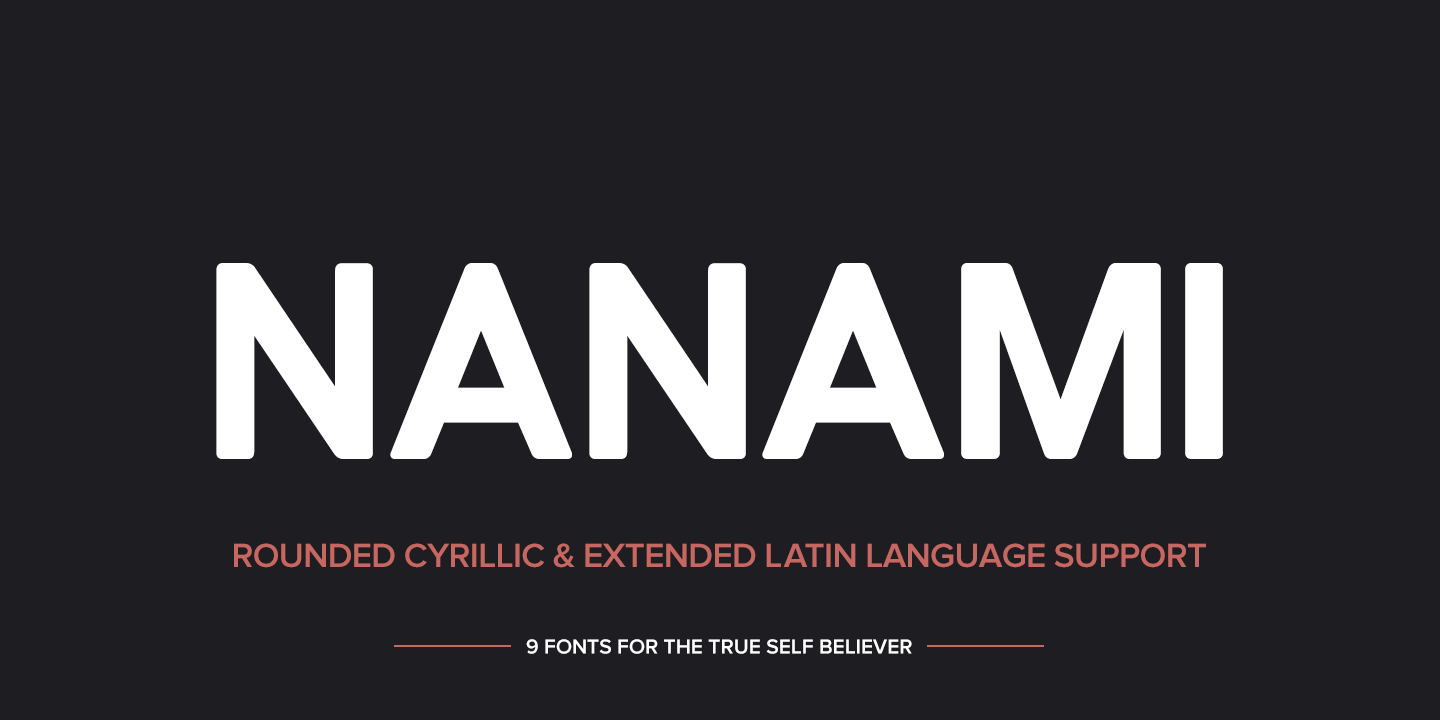
Nanami Rounded Pro Font is an incredibly versatile typeface, perfect for a wide range of applications. Its friendly and approachable design makes it ideal for branding, packaging, children's books, mobile app interfaces, and even editorial layouts. Whether you're designing a vibrant logo, crafting engaging headlines, or creating user-friendly digital experiences, Nanami Rounded Pro Font delivers a clean and contemporary aesthetic that resonates with modern design trends.
What makes Nanami Rounded Pro Font so exciting is its harmonious blend of soft curves and geometric precision. It strikes a perfect balance between playful warmth and professional legibility, ensuring your message is both inviting and clear. The rounded terminals give it a distinctive personality, allowing it to stand out without being overly whimsical. This font brings a fresh, optimistic feel to any project, making it particularly effective for brands looking to convey approachability, innovation, and a touch of minimalist charm. Its carefully considered proportions and expert kerning ensure a smooth reading experience, whether used in large display sizes or smaller body text.
The Nanami Rounded Pro Font family is comprehensive, offering a robust selection of weights and styles to meet diverse design needs. Typically, you'll find weights ranging from Thin or Light, through Regular and Medium, up to Bold and Heavy, along with corresponding italic versions. This extensive family provides designers with the flexibility to create visual hierarchies, emphasize key information, and maintain consistency across various design elements. Each weight maintains the signature rounded aesthetic, ensuring a cohesive and professional look throughout your projects.